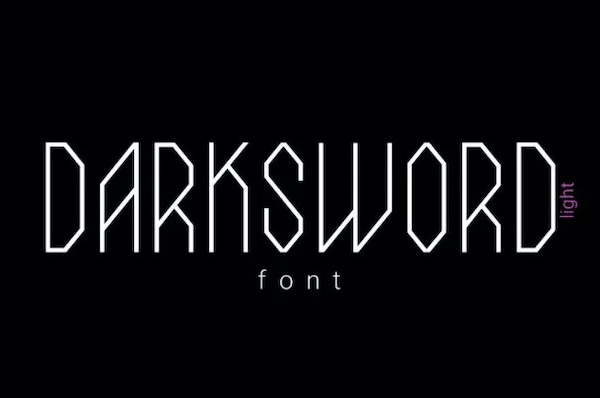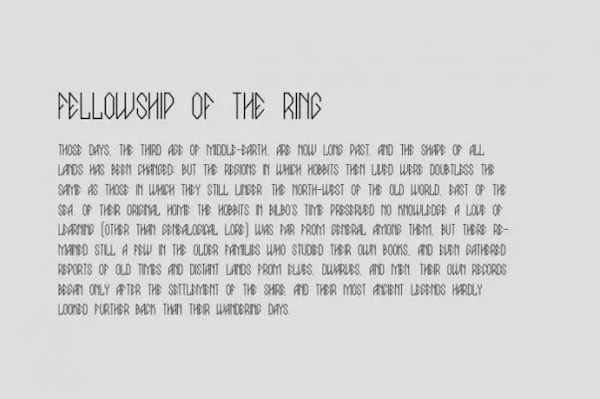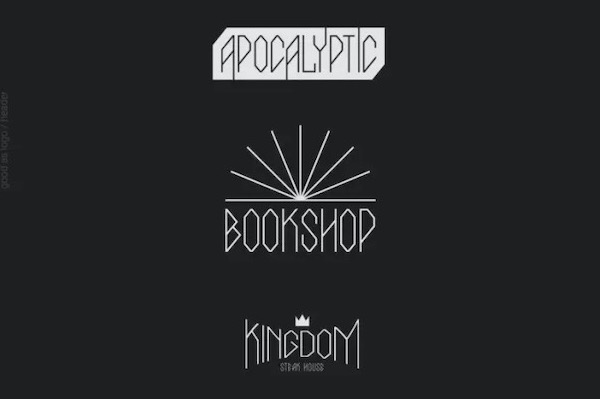
DarkSword Light is a modern friendly display font that was created for your favorite and contemporary designs. It will create ancient magic myths and a gothic atmosphere and style in any project. It is good looking as a header and as text both.
DarkSword Light Display Font